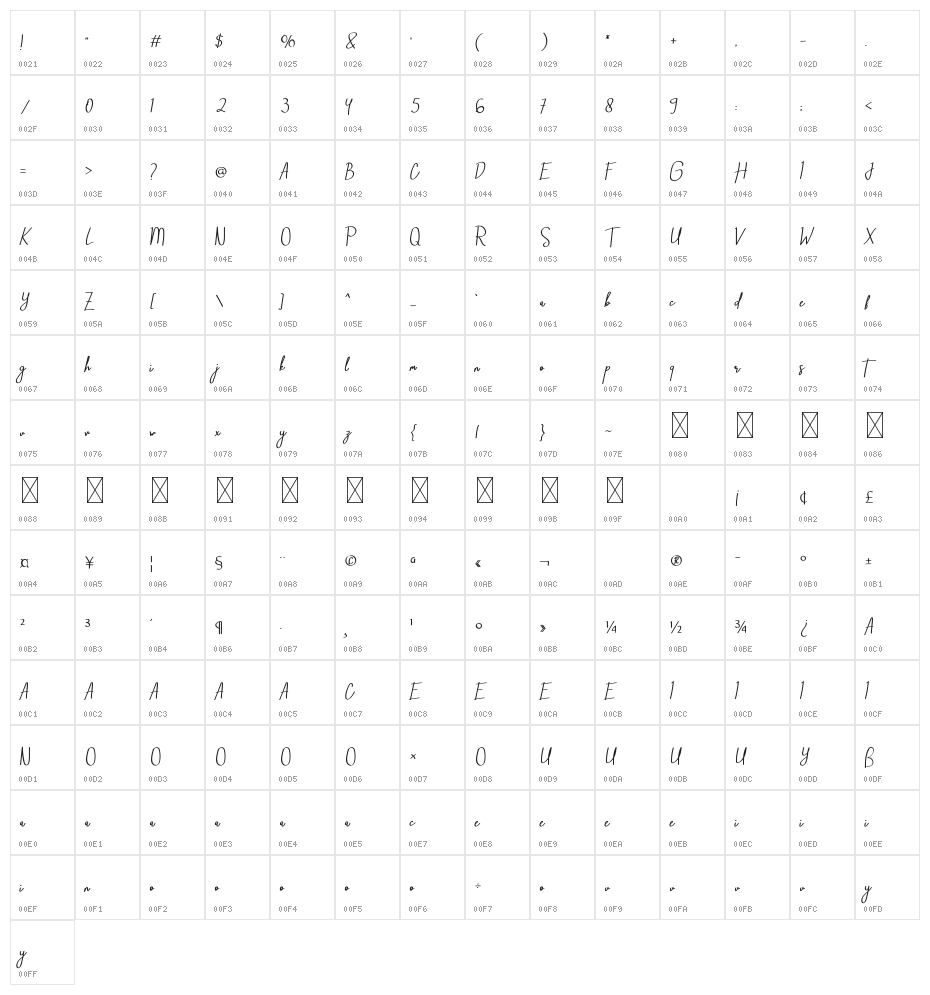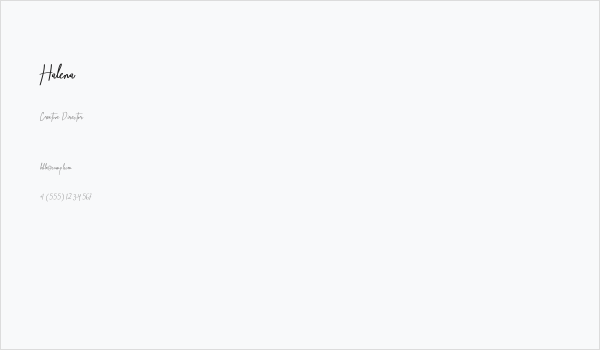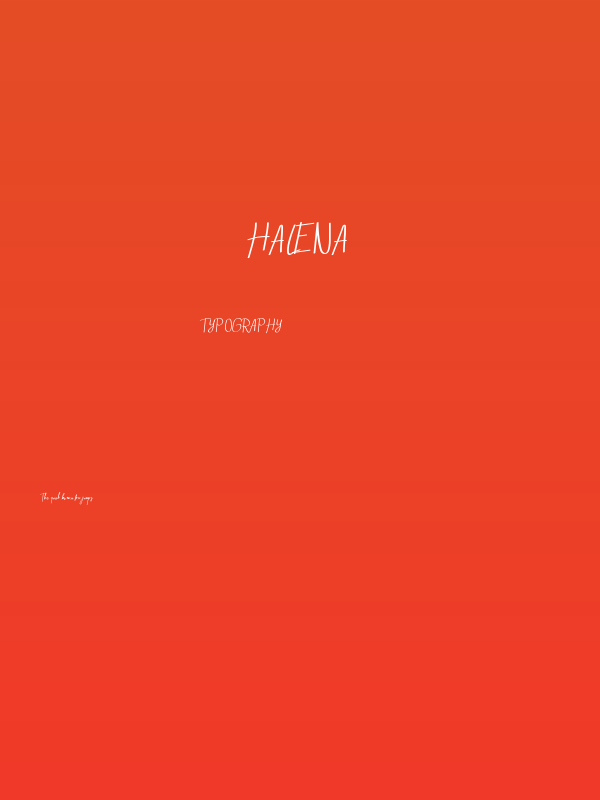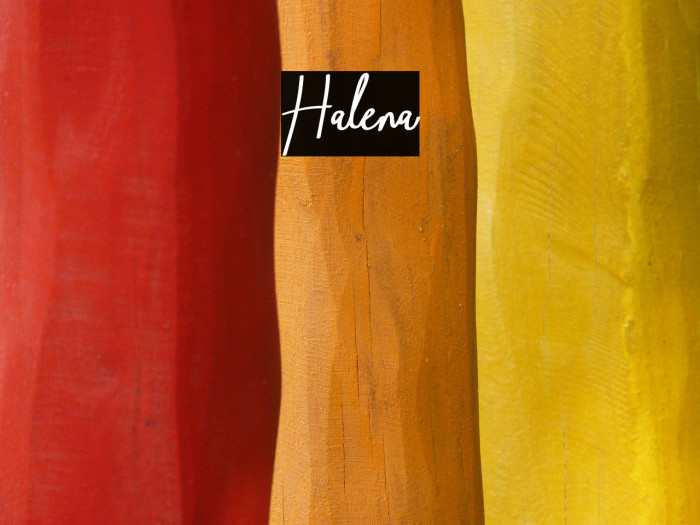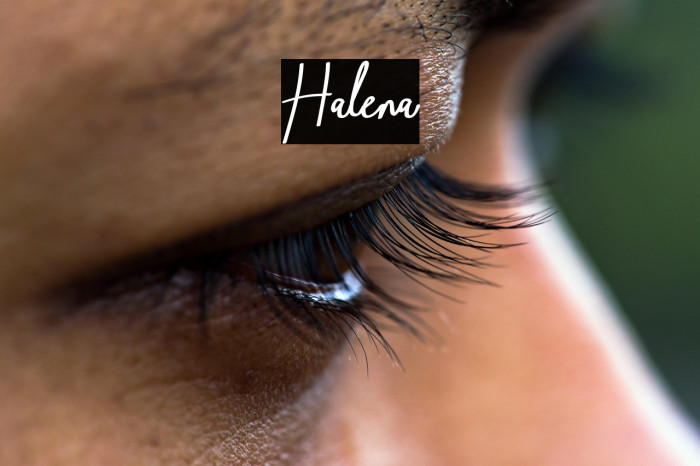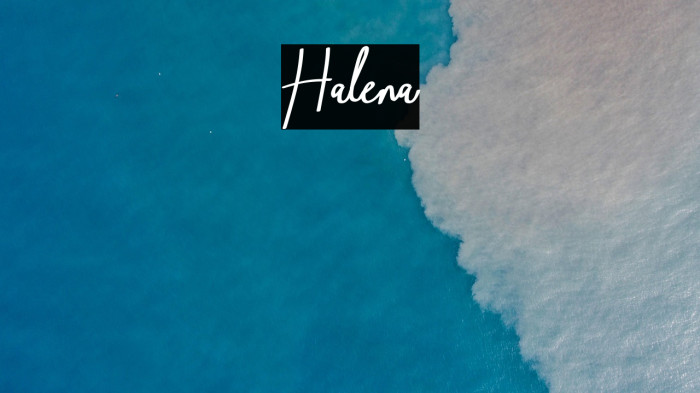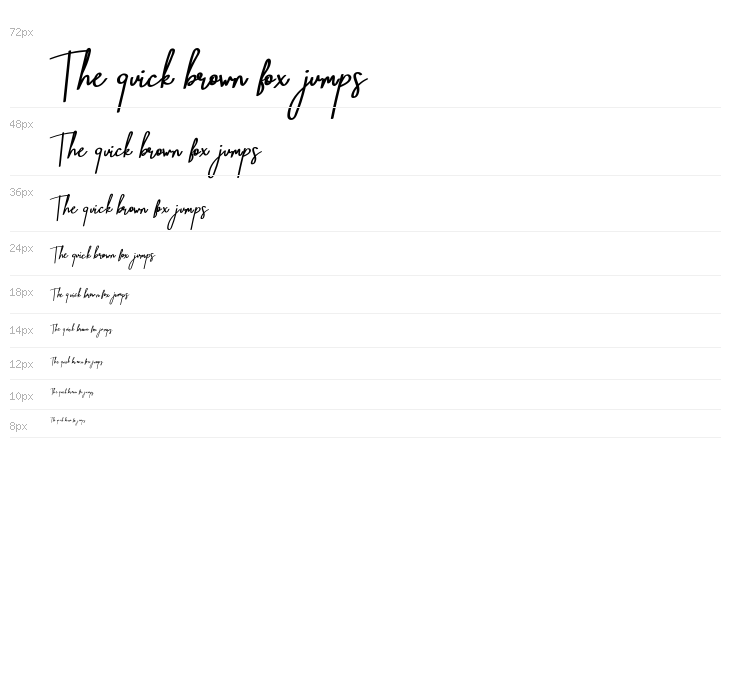
Halena Font
Halena Description
This font exudes a playful and elegant handwritten style, characterized by its flowing and slightly irregular strokes. The uppercase letters are tall and slender, with a slight slant that adds a dynamic feel. The lowercase letters maintain a consistent flow, enhancing readability while retaining a personal touch. Numbers are clear and distinct, matching the overall aesthetic. Special characters are thoughtfully designed, complementing the font's whimsical nature. This font is perfect for projects that require a personal, yet sophisticated touch.
| Overall Style | Elegant, Playful |
| Use Case | Headlines, Invitations, Personal Branding |
| Proposed Projects | Ideal for wedding invitations, greeting cards, personal branding, and creative projects that require a personal touch. |